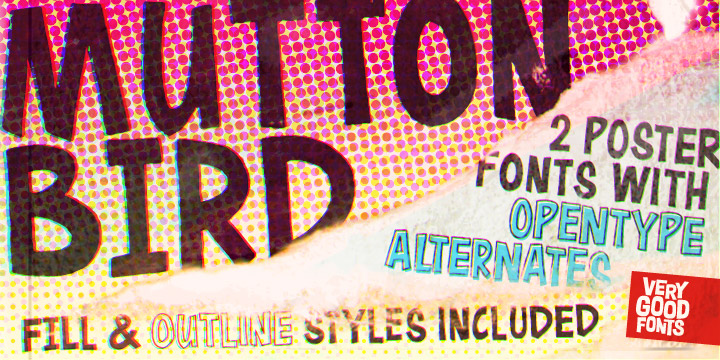
Paul Brannelly of New ZealandPaul Brannelly is an illustrator, cartoonist, old-school ticket writer, and sign writer. He has been creating fonts by hand since he started working as a sign writer straight out of school in the late 1980s. His stable of brush stroke fonts has graced windows and walls around local shops and buildings for more than 15 years. Now based in the one horse town of Marton, New Zealand, Paul is more than the local go-to guy for your shopĂs window; his quality crafted sign work and lettering has earned him clients around New Zealand and internationally. Fonts by Paul BrannellyChoc Chip, Cuckoo, Cuckoo Fast, Cuckoo Fat, Inmate, Muttonbird, Two Stroke Browse all fonts by Paul Brannelly Activities Please note: This is not an official page of Paul Brannelly and e-mailing us is not a good way to contact him. Corrections welcomed. |